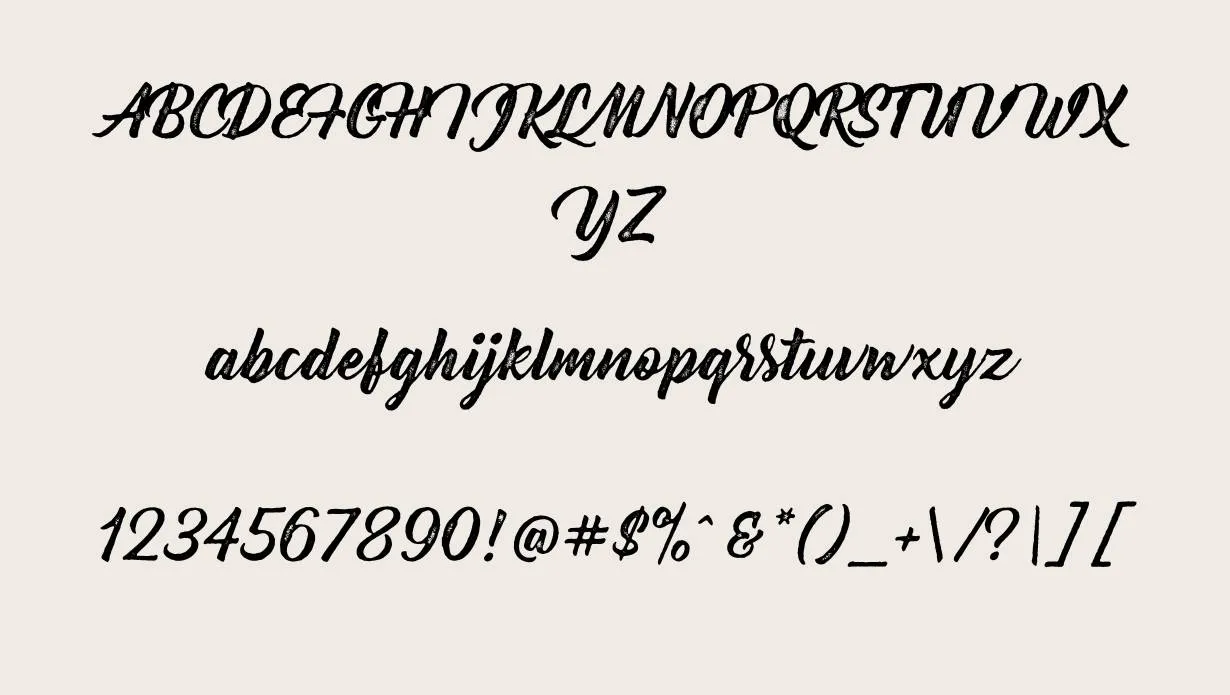
Let’s talk about a brush typeface Clement Nicolle manufactured by SteroType The look of this font is very clear and beautiful. You can make attractive designs by using this font as it has amazing features. It contains 235 characters, 201 glyphs, and 1000 units per Em. The font’s weight is Bold and its width is medium(normal).
Bernadette Rough Font Family